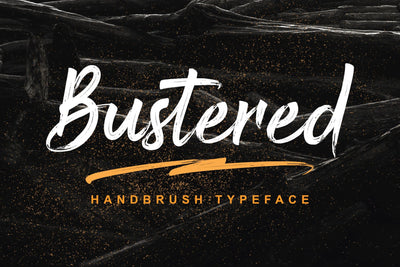
Bustered - Handbrush Typeface
Bustered is a new type of Hand Brush made especially for designers. with etched textures will enhance any of your designs. with support
Uppercase, Lowercase, Numbers, Symbols, Multilingual, Ending SWSH and complete with 26 Swsh.
Bustered is perfect for name branding, advertising design, t-shirt design, jacket design, formal events, celebration design, posters, web, banners, book covers, social media, beauty skincare advertisements, and other designs.